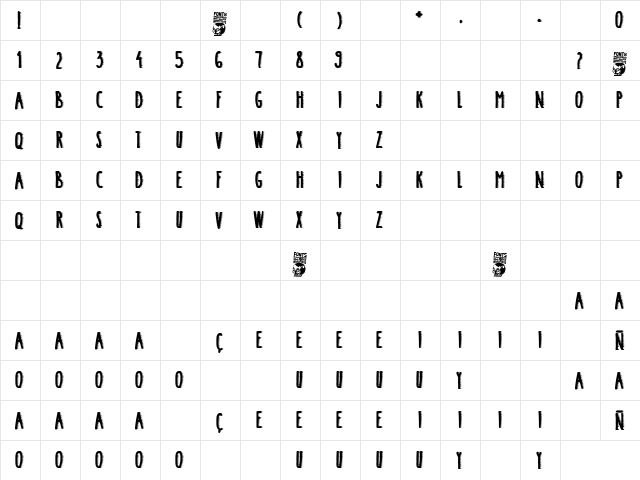
Crazy Saigon Regular
| Designer | Woodcutter Manero |
Design Context for Crazy Saigon Typeface
Crazy Saigon is a composed and adaptable typeface that performs quietly and consistently across a wide range of design contexts.